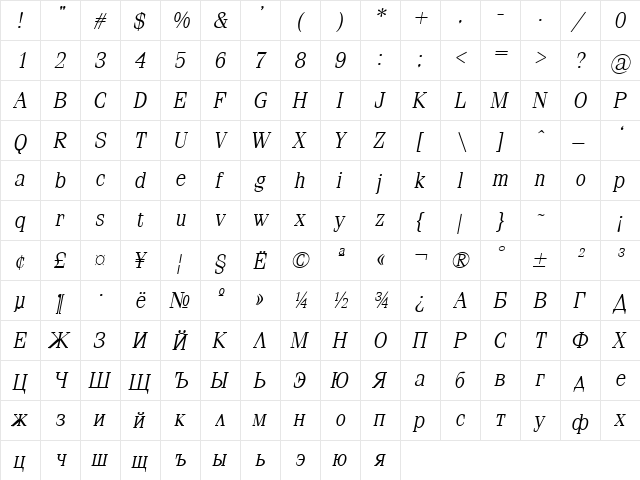
SimeizLight Light Font Preview
SimeizLight Light
SimeizLight Light Font Details
Design Context for SimeizLight Typeface
SimeizLight is a composed and adaptable typeface that performs quietly and consistently across a wide range of design contexts. Its slender proportions lend an understated elegance to any composition.